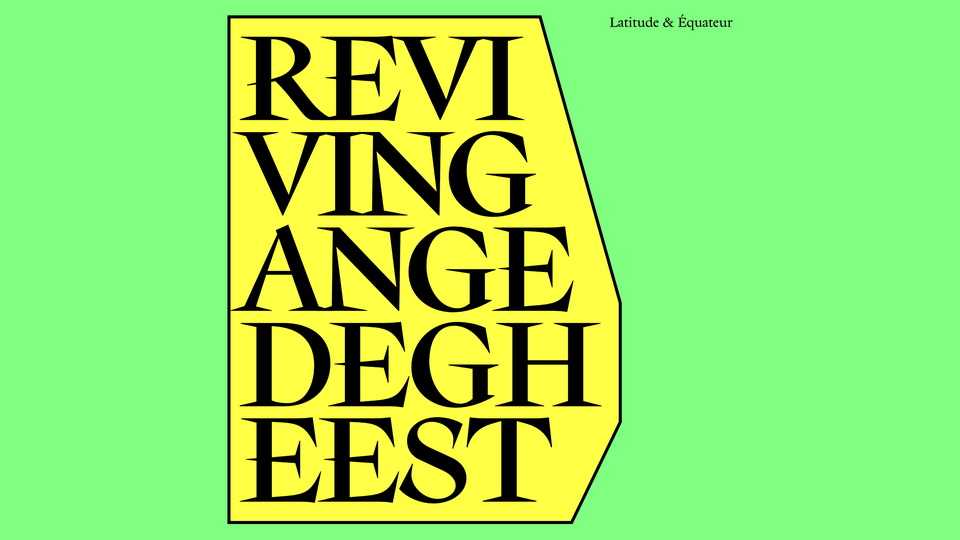
Download Latitude and Equateur font, revivals of typefaces designed by Ange Degheest in 1956 for the Fonderie Typographique Française.
Designer: Eugénie Bidaut